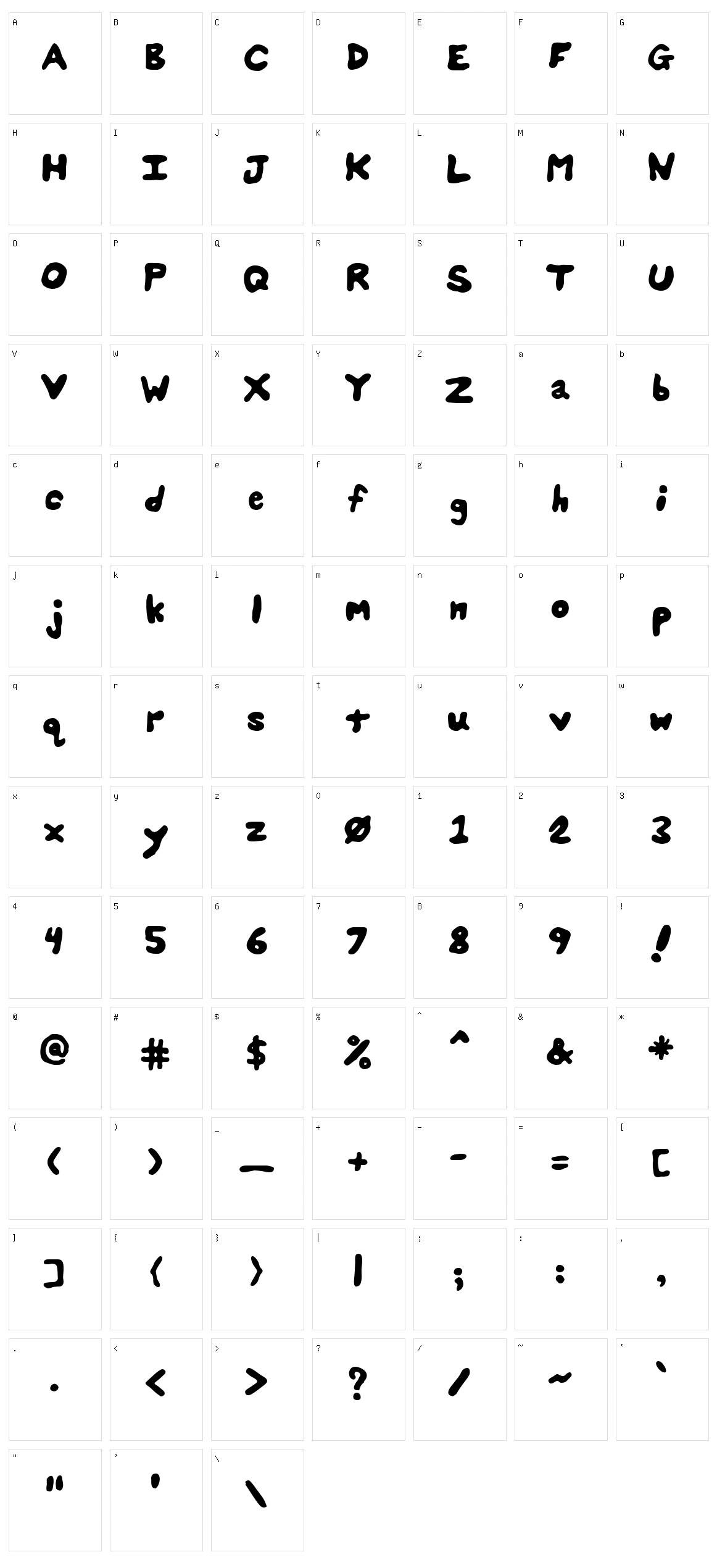
The free font Splats Unsplatted is carefully designed by John A. Huebner II, showcasing a thoughtful balance of creativity and usability and falls under the Cartoon font style. When you download the ZIP file, it contains only 29.79 KB of font files, making it lightweight and quick to download. Please review the license details below to understand permitted usage and distribution rights. If license information is not available, we recommend using this font for personal projects only or contacting the author directly for commercial usage permissions.